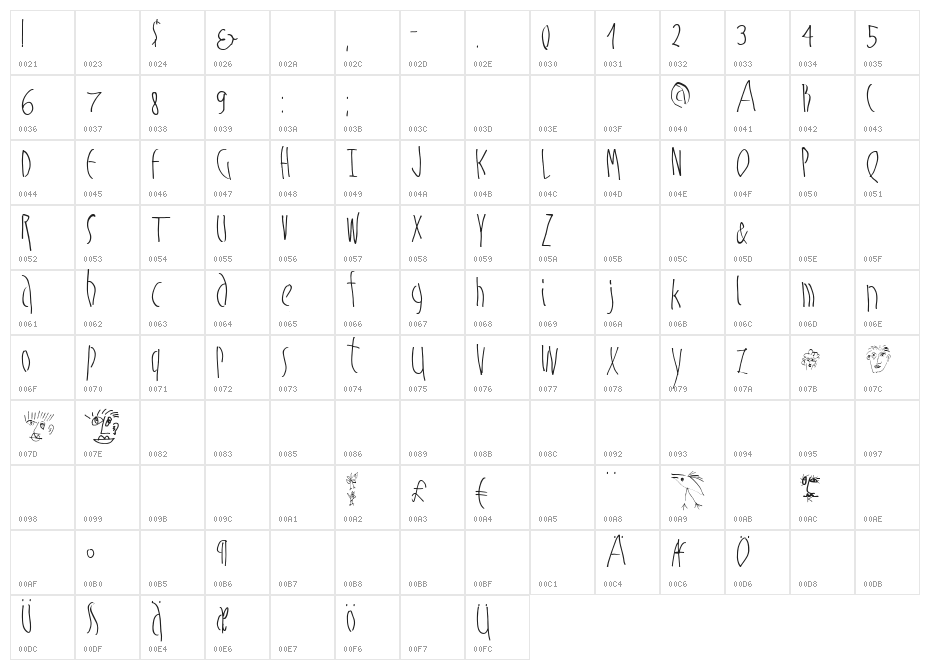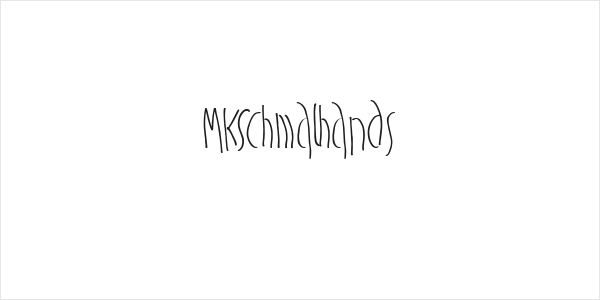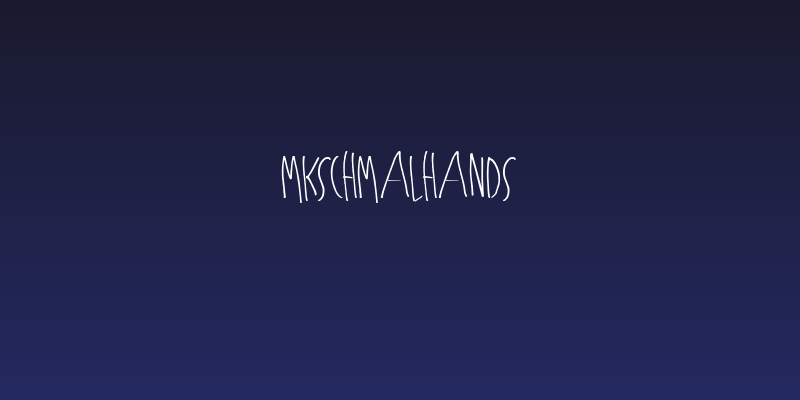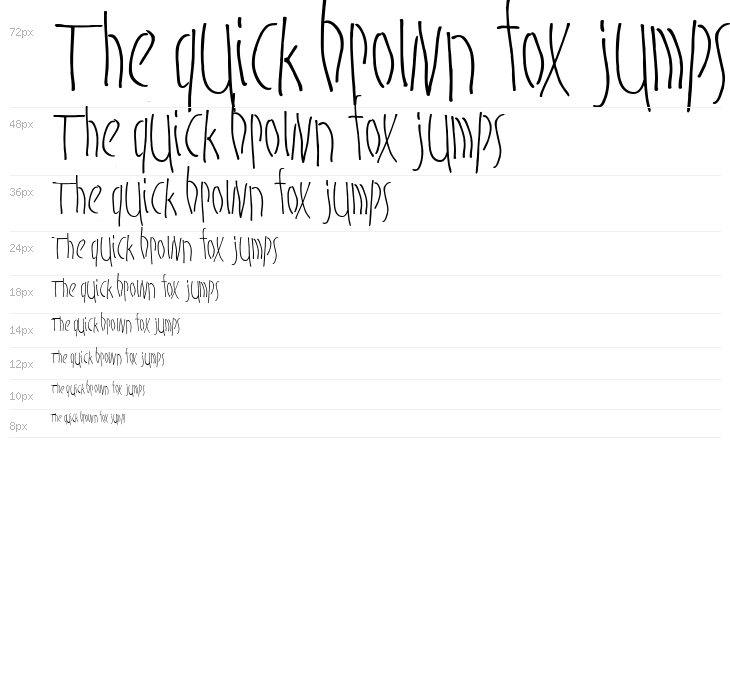
MKSchmalhands Font
This font features a distinctively tall and narrow design, characterized by elongated vertical strokes and minimal horizontal width. The letters have a hand-drawn, whimsical quality, with slight irregularities that add to its charm. The uppercase letters are particularly elongated, giving them a dramatic and artistic appearance. The lowercase letters maintain the same narrow aesthetic, with a playful and informal style. Numbers and special characters follow the same design principles, ensuring consistency throughout. The overall look is both quirky and sophisticated, making it suitable for creative and artistic projects.
Proposed ProjectsIdeal for artistic projects, creative branding, unique invitations, and decorative posters.